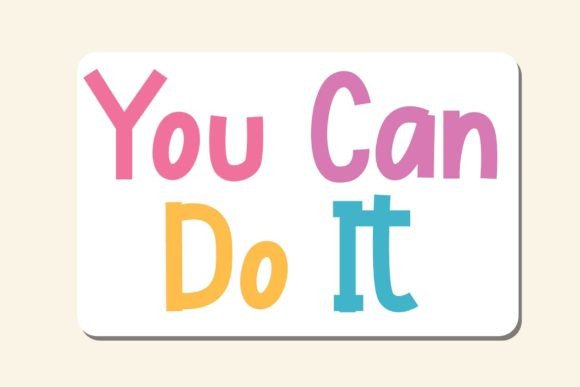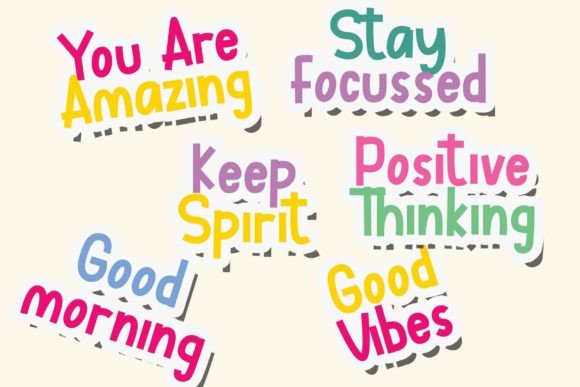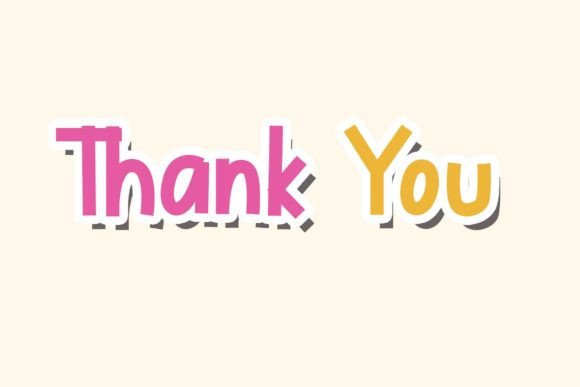
The Perfect Combination of Cuteness and Creativity
Have you ever found yourself staring at a blank page, desperately searching for the perfect font to bring your creative vision to life? For many designers, this is a common dilemma. But what if we told you that the solution lies in a font that’s as sweet as it is versatile? Say hello to the adorable Candids Font, a delightful addition to any design project.
This charming font is designed to add a touch of whimsy and fun to your work, making it a perfect fit for book covers, children’s theme designs, thank you notes, and crafts. With its cute character and playful flair, Candids Font has the potential to become your go-to font for any occasion. Whether you’re a seasoned designer or a DIY enthusiast, this font is sure to bring a smile to your face and a touch of magic to your creations.
Candids Font Key Features
- Unique Characteristics: Candids Font features a unique, hand-drawn aesthetic with subtle texture and imperfections, giving it a distinctive and artistic feel.
Candids Font Review
Candids Font is a unique, hand-drawn sans-serif font that catches the eye. Here’s my honest review of this font.
- Unique, hand-drawn aesthetic: Candids Font offers a refreshing change from the usual digital fonts.
- High-quality font files: The font files are well-designed, making them suitable for a wide range of applications.
- Perfect for creative projects: Candids Font is ideal for creative projects, such as art books, magazines, and posters.
- Limited legibility: Candids Font may not be the best choice for large blocks of text due to its handwritten style.
- Not suitable for body text: The font is best used as a heading or title font, as it may be difficult to read in small sizes.
- No matching font family: Candids Font is a single font, which may limit its use in projects requiring a consistent font family.
Candids Font is a great choice for creative projects that require a unique, eye-catching font. While it may have some limitations, its high-quality design and versatility make it a valuable addition to any designer’s toolkit.
Candids Font is a great choice for creating a modern, minimalist aesthetic.
Use it for headings, titles, and other display text to add a touch of sophistication to your designs.
For best results, pair Candids Font with a clean and simple design to let the font shine.
Common use cases include: branding, marketing materials, and digital signage.
Alternatives to Candids Font
Lato is a modern sans-serif font designed by Łukasz Dziedzic. It’s ideal for use in digital products, such as websites, apps, and software. Lato is known for its clean and neutral look, making it suitable for various contexts. Compared to Candids Font, Lato is more versatile and comes in a wider range of weights and styles.
Open Sans is a highly legible sans-serif font designed by Steve Matteson. It’s widely used in digital products due to its readability and neutral aesthetic. Open Sans is a good alternative to Candids Font for body text, as it’s designed to be easy on the eyes and suitable for long-form content. However, it may not be as stylish or attention-grabbing as Candids Font.
Monterssor is a sans-serif font designed by Julieta Ulanovsky. It’s inspired by urban typography and features a strong, geometric look. Montserrat is ideal for use in headings and titles, as it’s designed to be bold and attention-grabbing. Compared to Candids Font, Montserrat has a more urban and edgy feel, making it suitable for projects that require a bold and modern look.
Q: What is the recommended font size for Candids Font in digital interfaces?
The recommended font size for Candids Font varies depending on the context. For body text, a minimum font size of 14px is recommended, while display headings can be set at 24px or larger. It’s also essential to consider the screen resolution, device, and font rendering engine when choosing the optimal font size.